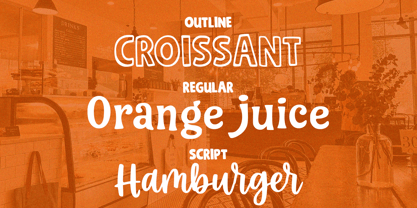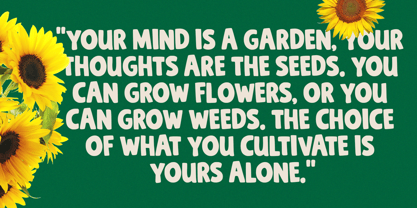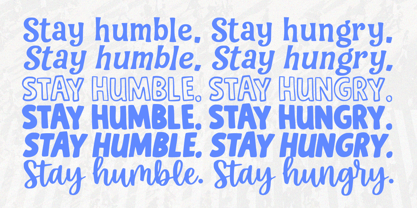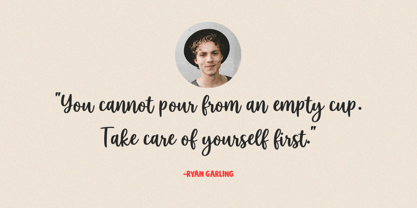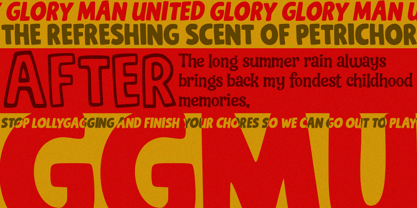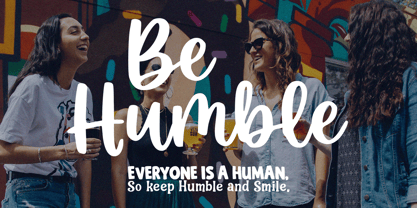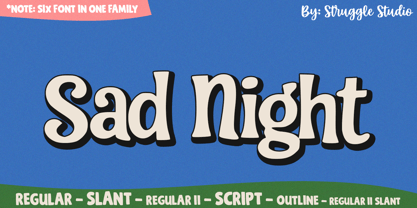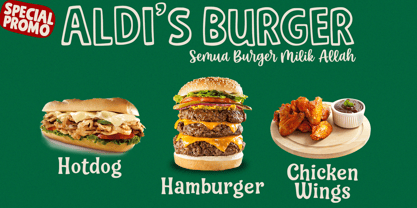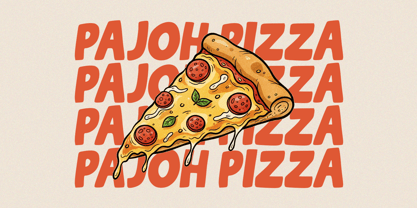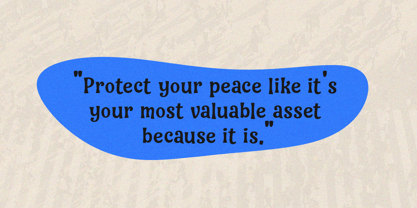
Sad Night
The Sad Night Font Family was designed by Andri Kurniawan and published by Struggle Studio. Sad Night contains 6 styles and family package options. More about this family
Bad Night is a retro-funky font family by Struggle Studio, inspired by the bold and playful aesthetics of the 70s. It features thick, expressive curves that deliver a strong vintage vibe, making it perfect for standout logos, posters, and merchandise.
Key Highlights:
Versatility: Includes 6 styles (Regular, Slant, Regular II, Script, Regular II Outline, and Regular II Slant).
Character: Bold and dynamic shapes with a friendly, nostalgic feel.
Best For: Eye-catching headlines and creative branding projects.